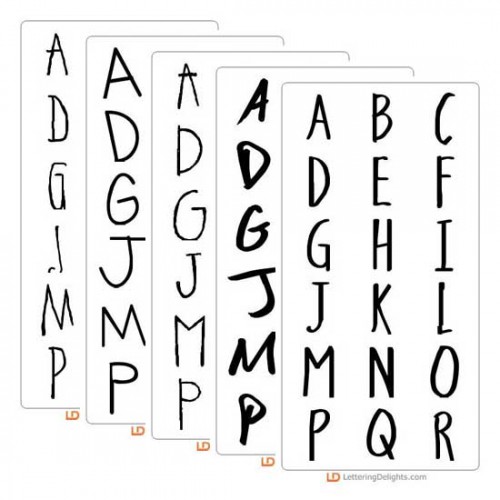
LD Pen Pal Fonts Bundle
A collection of versatile, handwritten-looking fonts, so useful in any application from journaling to writing to you best friend. Each one, a welcome addition to your font library.
LD Emily Pen - Font
LD Emily Pen is a versatile, youthful font that reminds us of getting notes from that best friend...
LD Erin - Font
LD Erin is a simple styled font with tall thin letters and numbers...
LD Fundamental - Font
LD Fundamental brings energy and fun to any journaling need...
LD Genial - Font
LD Genial is a fun font with various letters toggled up or down...
LD In A Hurry - Font
Just as the name implies, LD In A Hurry is a great font choice for projects that reflect the rush of..
LD Little Buggy - Font
LD Little Buggy is an enjoyable, outlined font that is perfect in adorning invitations, digital proj..
LD Little Piggy - Font
LD Little Piggy is an adorable font straight from a fairytale story book. LD Little Piggy's handwri..
LD Manish Print - Font
Don't let the title LD Manish Print fool you...this is a great font for anytime you need a bold, han..
LD Teacher's Hand - Font
The careful penmenship of LD Teachers Hand makes it a fun choice for many applications...
LD Grandpa - Font
LD Grandpa is such a great font for any journaling application...and definitely not just for your ma..
LD Hazard - Font
LD Hazard is a great handwritten looking font with bold strokes...
LD Ink Blot - Font
LD Ink Blot has a rough, handmade look. Enjoy!..
LD Sidewalk Chalk - Font
LD Sidewalk Chalk is a fun, child-friendly font resembling the style of wacky sidewalk chalk...
LD Susie - Font
LD Susie is an adorable handwritten-type font straight from a young ones diary...
LD Teensel - Font
LD Teensel is the perfect font for a fun, handwritten look for teens, tweens, or any age. Enjoy!..
LD Tilted - Font
LD Tilted...a must have in your font library!..
LD Kiss the Cook - Font
LD Kiss the Cook resembles those quick recipe notes or a handwritten kitchen scrawl...
LD Cinch - Font
Need a cute font to use for your youthful journaliing? LD Cinch is the perfect, adorable choice...
LD Cotton Candy - Font
Check this out! LD Cotton Candy is an adorable handwritten, script font...a must-have for so many le..
LD Sara - Font
Just because LD Sara is plain and simple doesn't mean it's any less fun. LD Sara is great for journ..